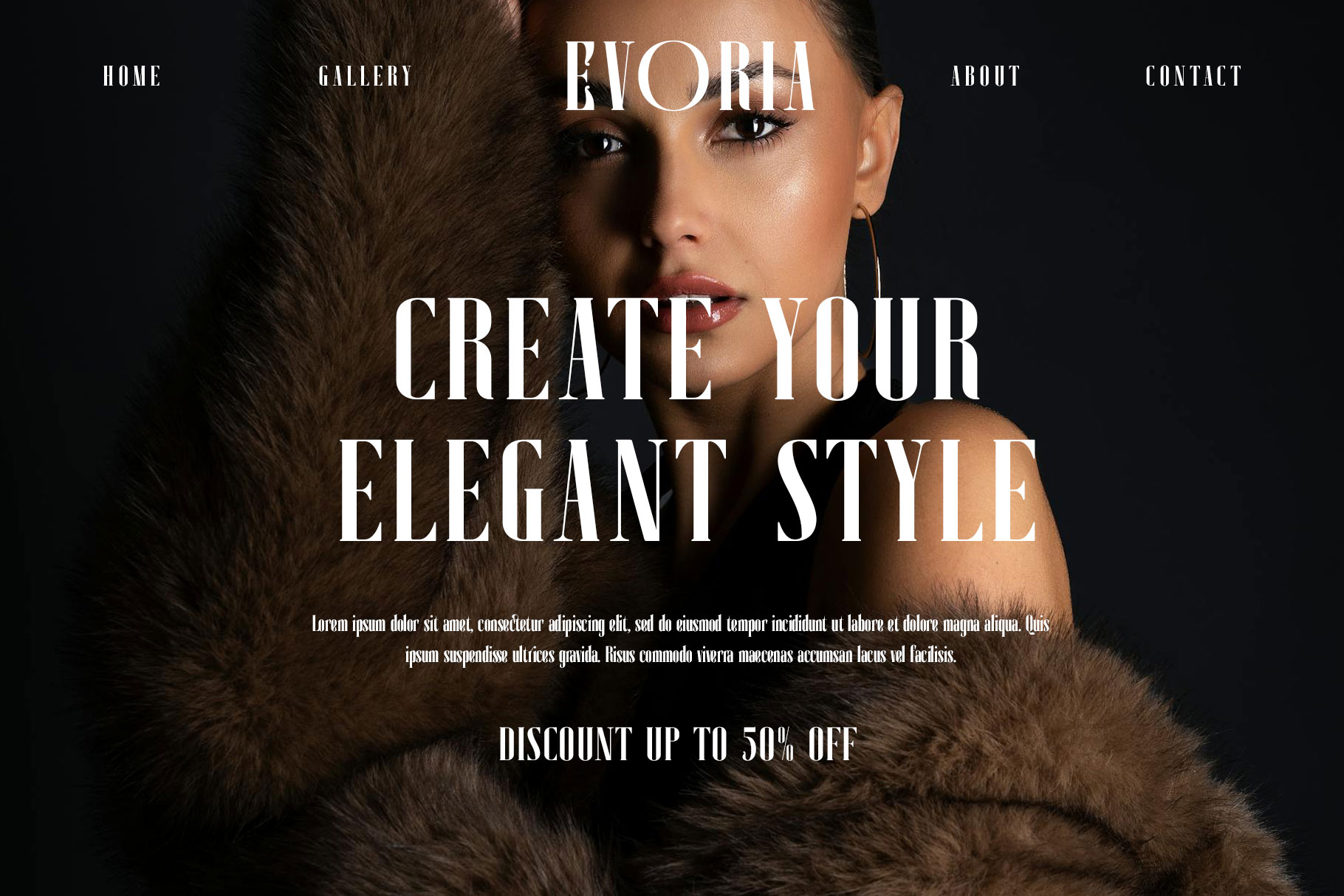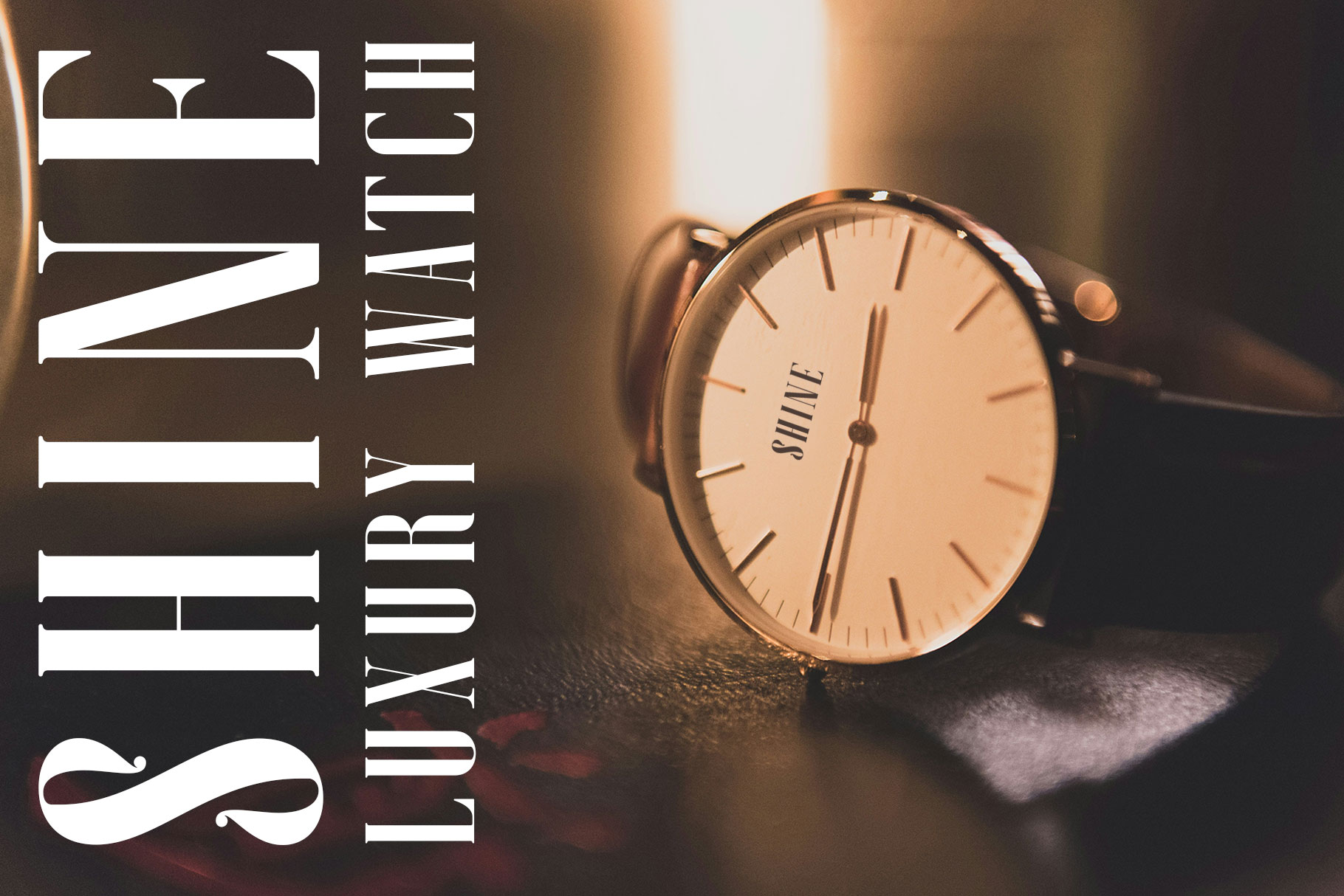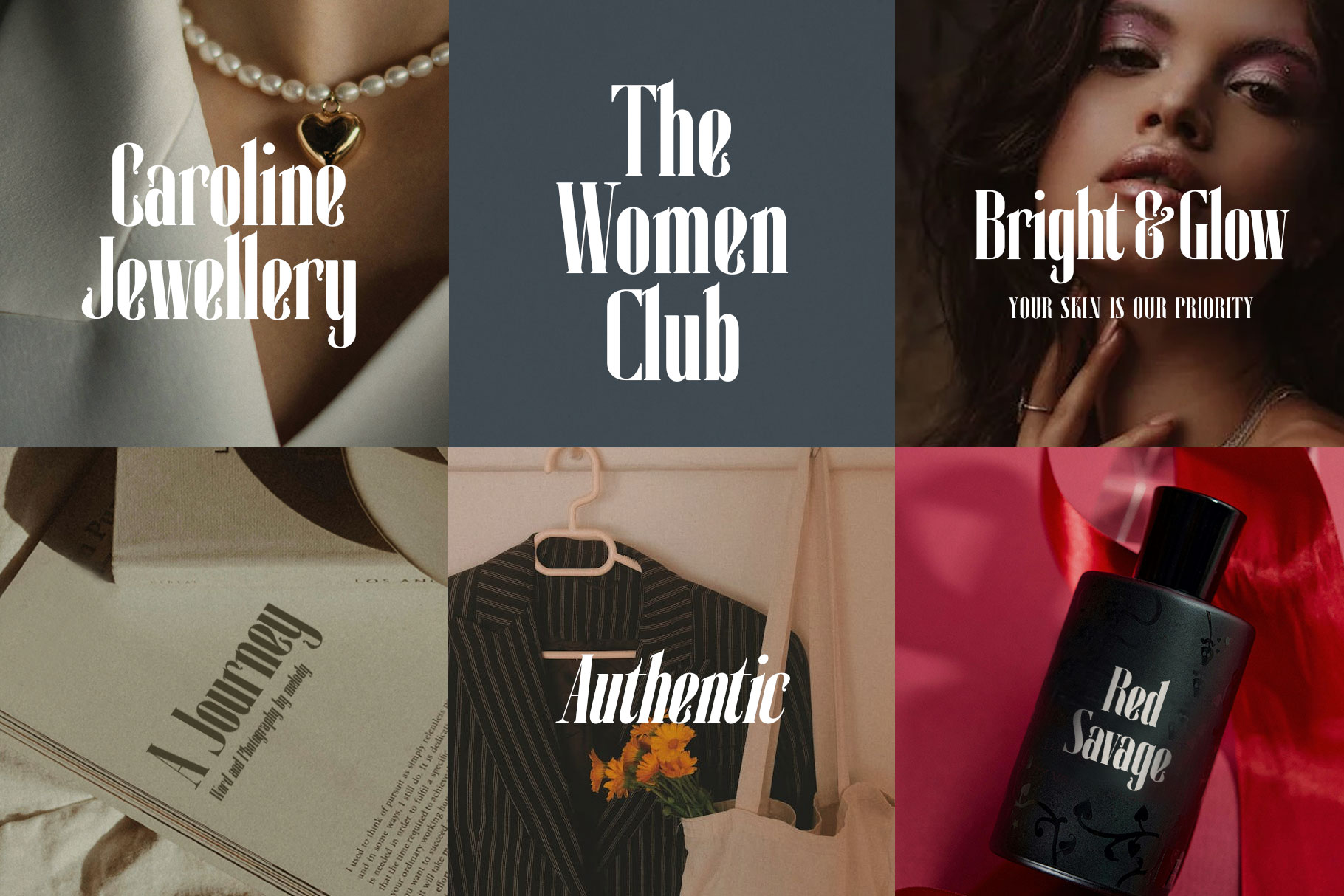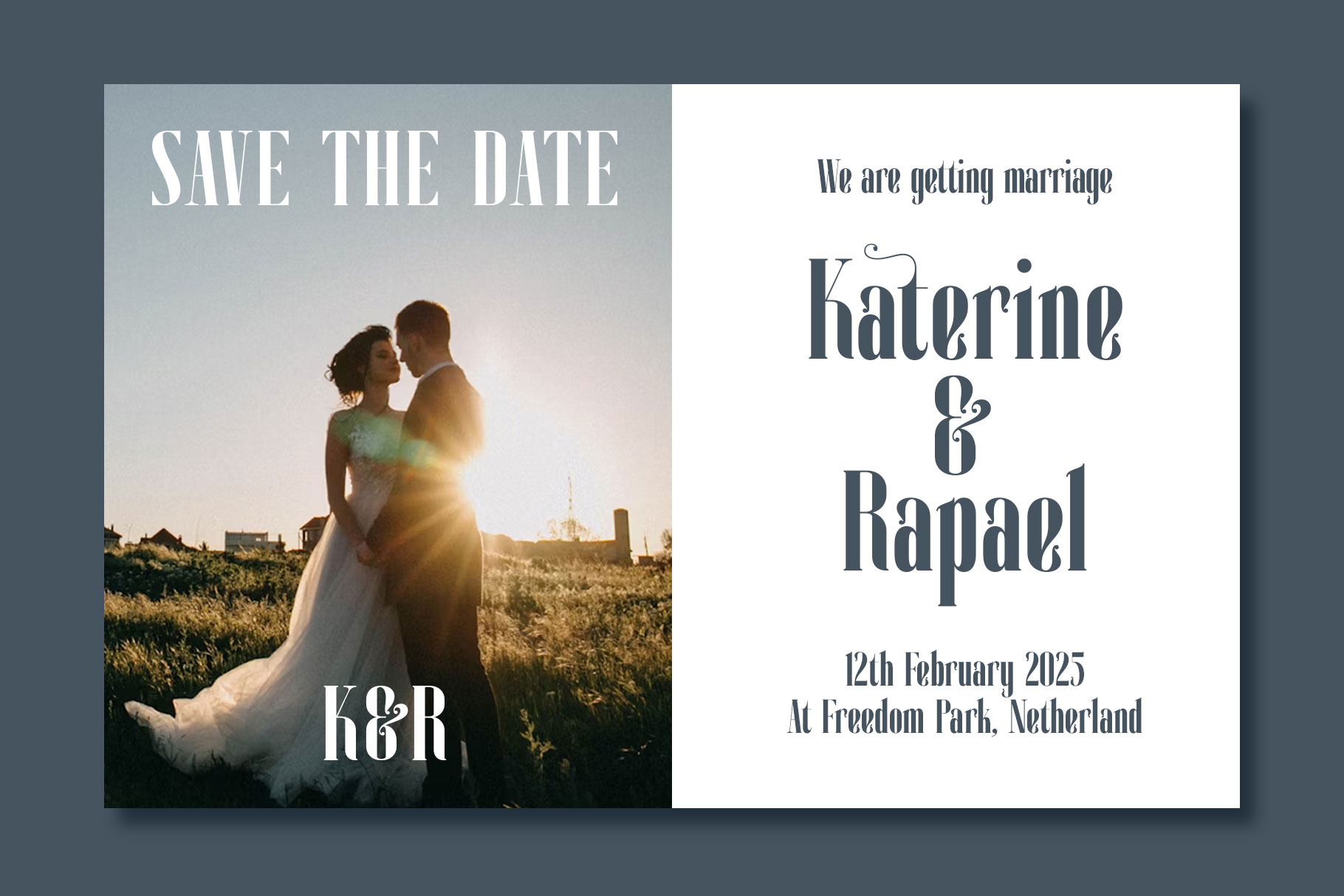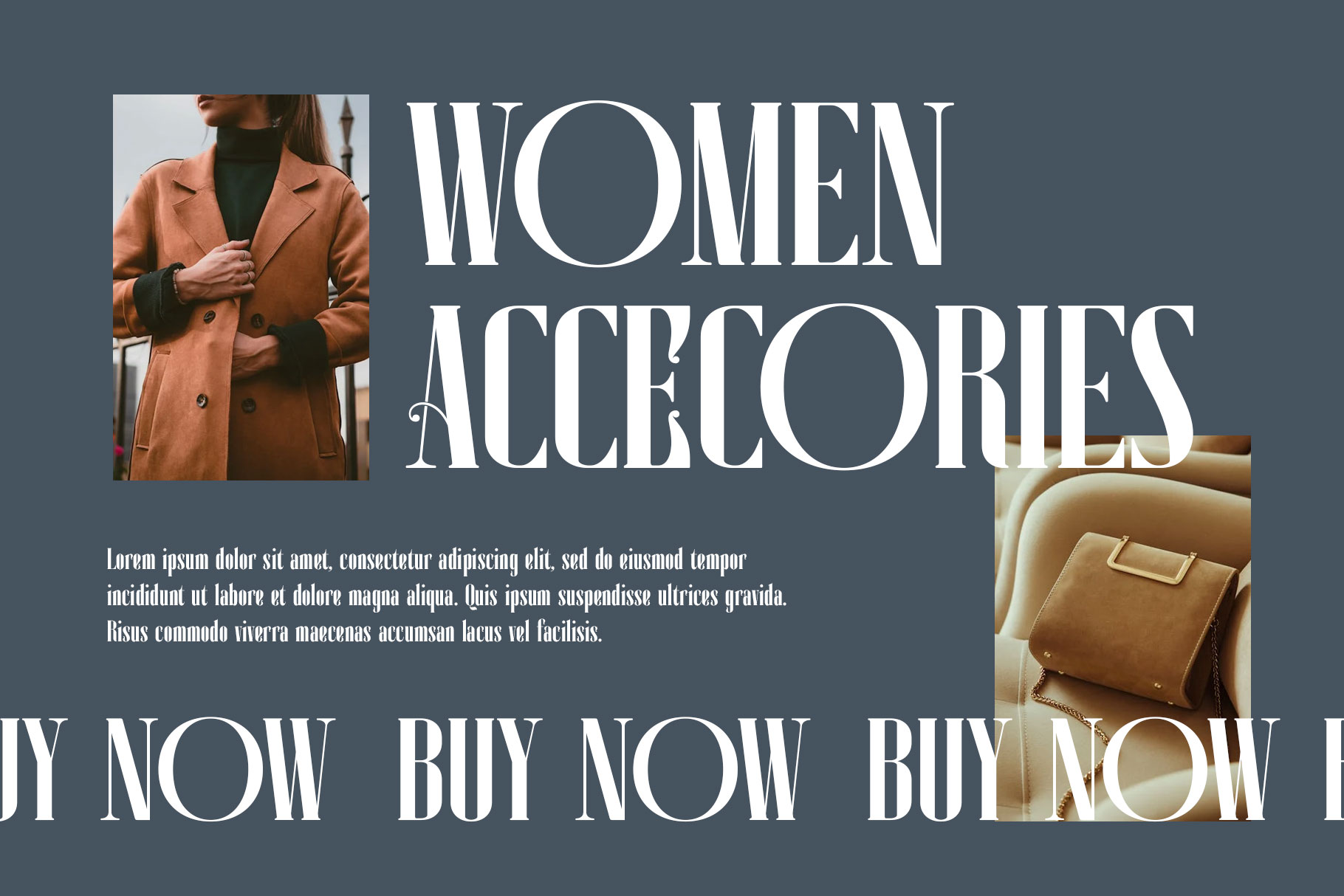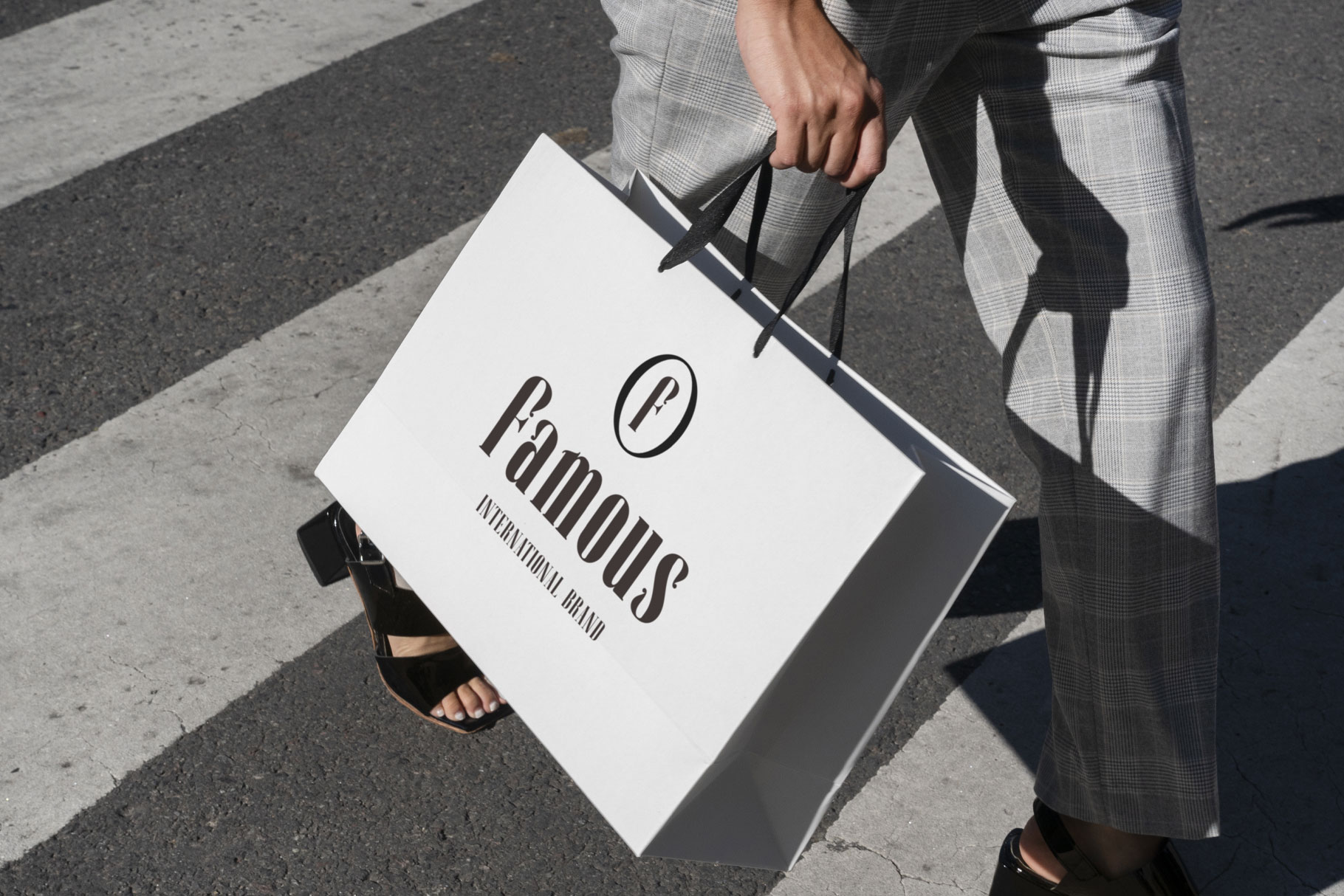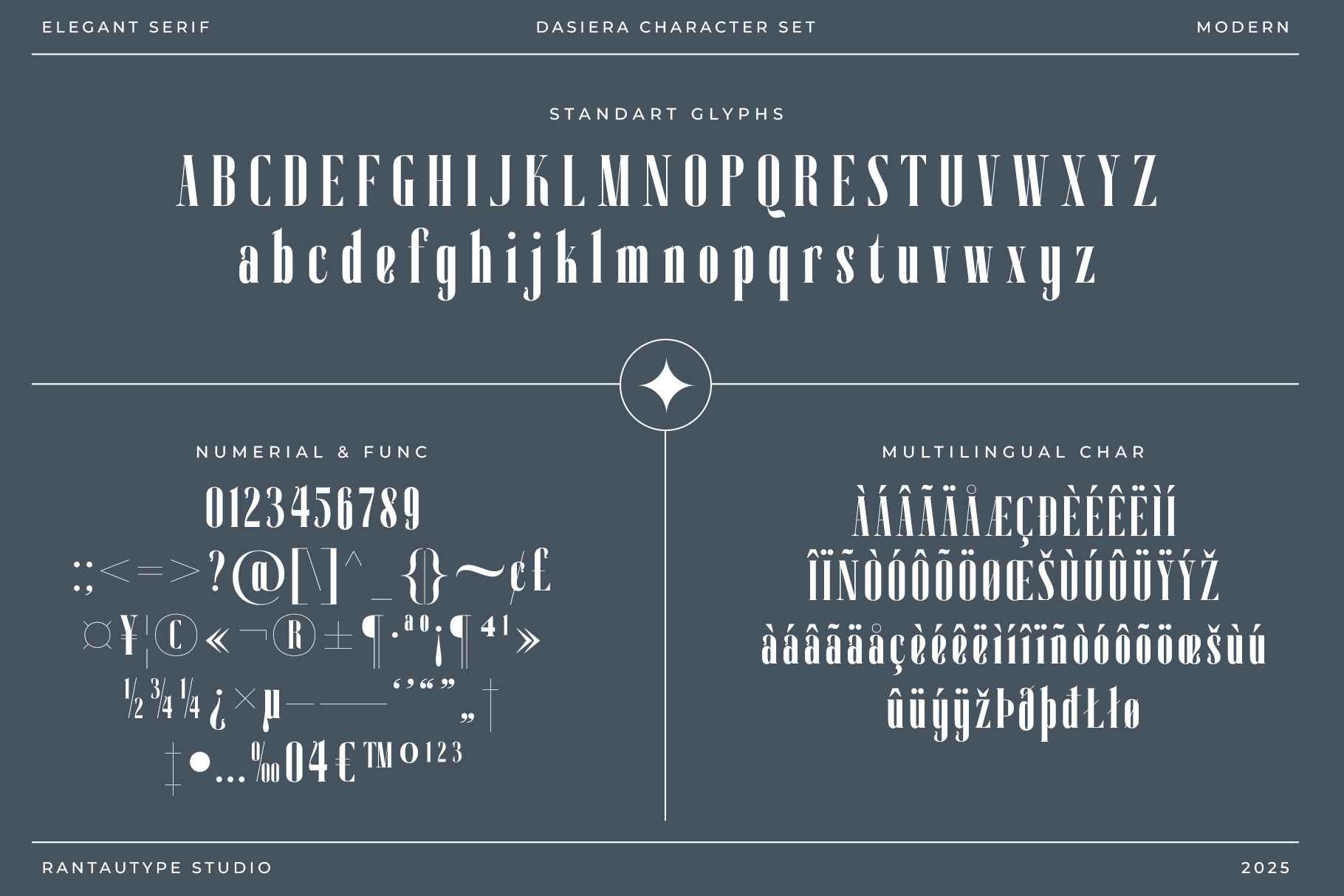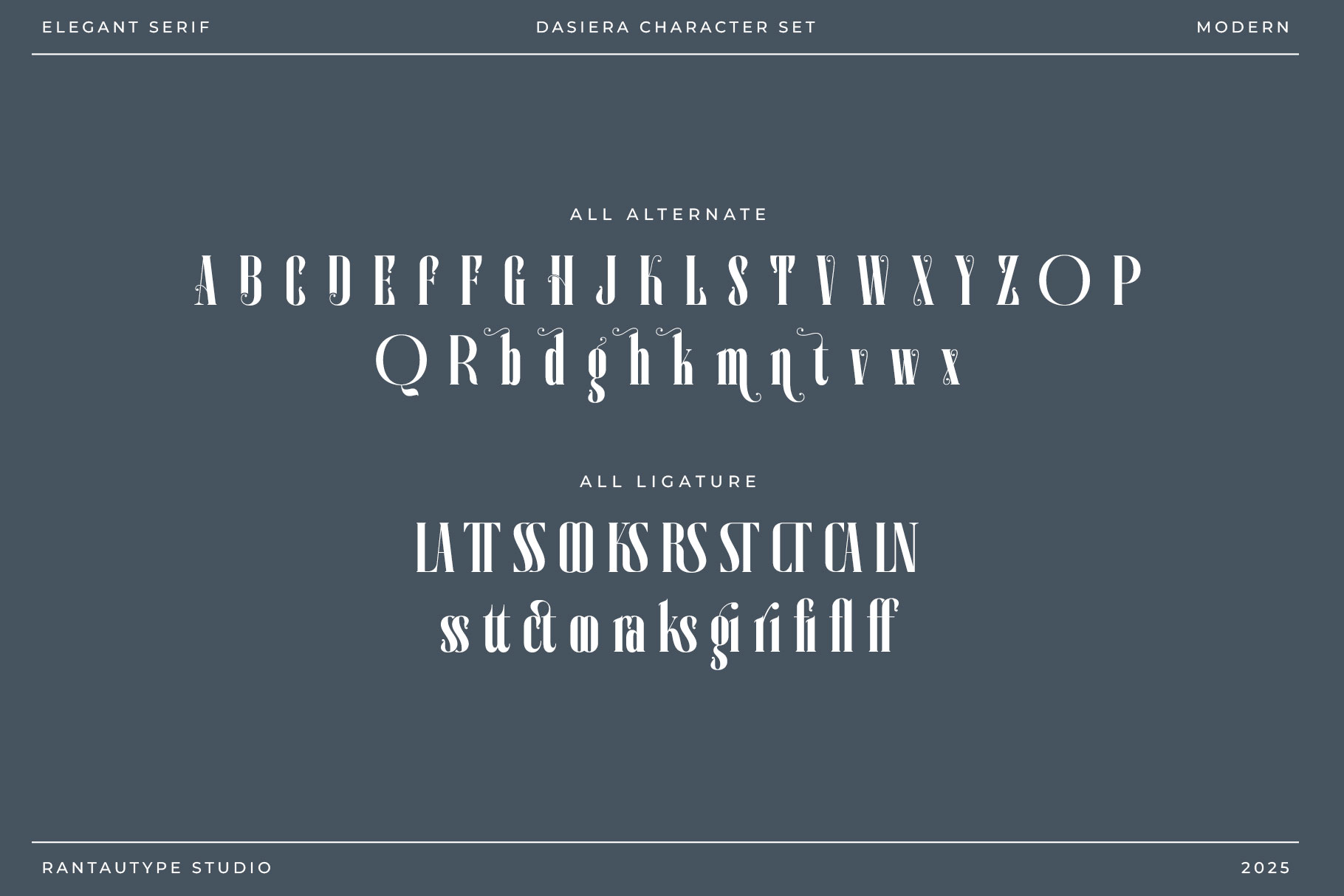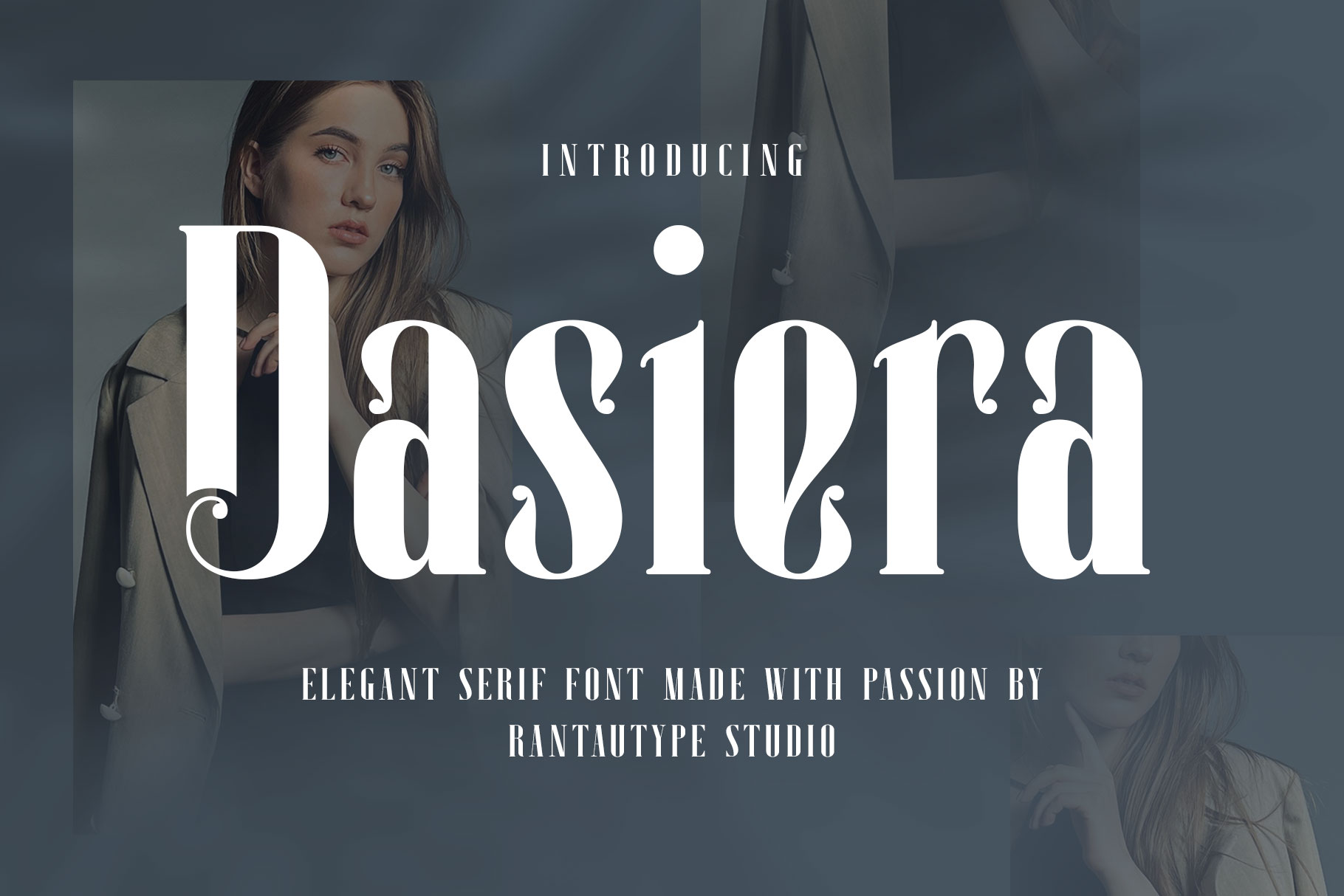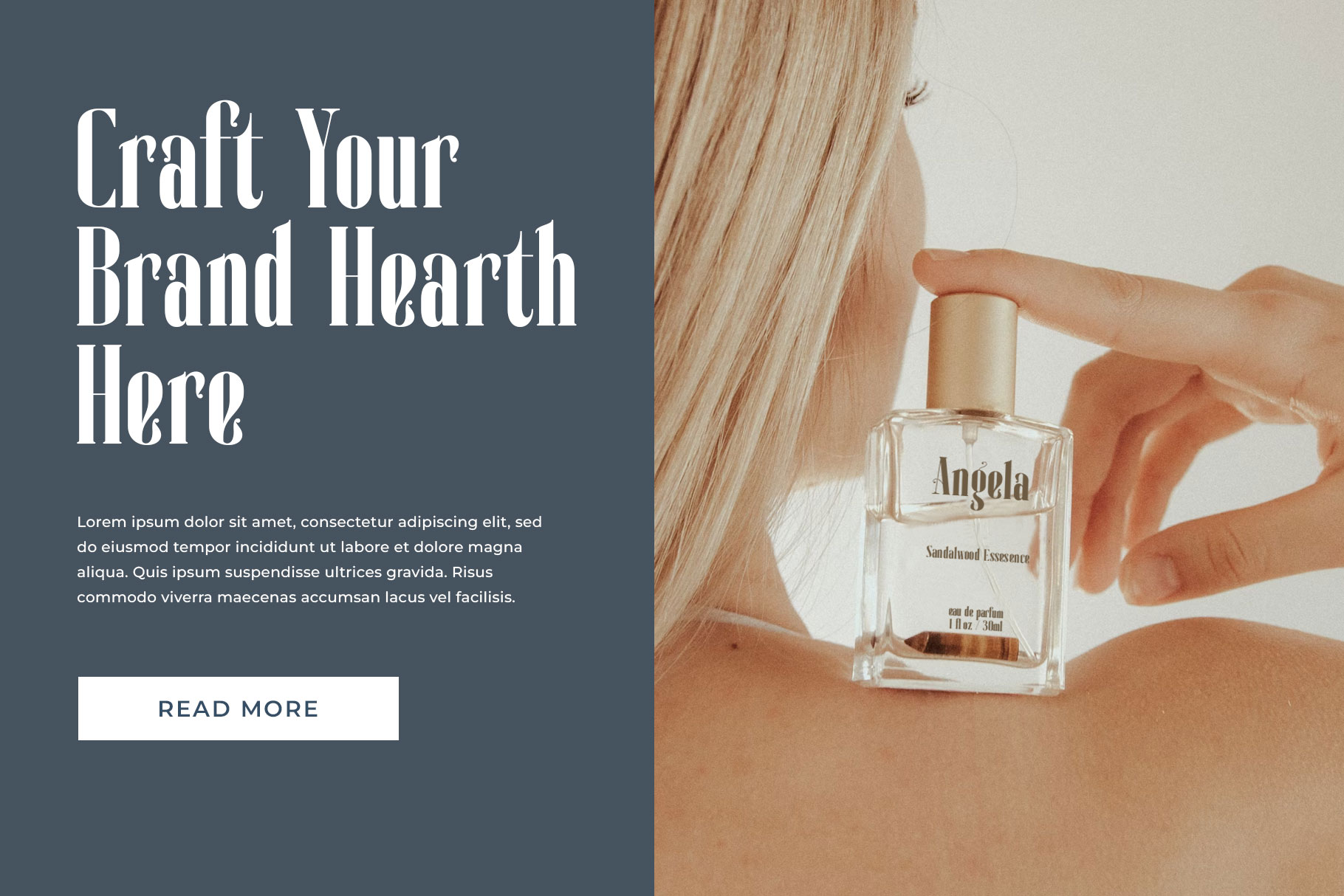
Dasiera Elegant Serif Font
Dasiera is elegant serif font with grace and elegant style. Dasiera bring typography with fashionabel look to create your design project awesome. Dasiera is a perfectly choice for any creative endeavor, chic, lifestyle design such as logotype, advertisements, watermark on photography, stationery, branding project, display and magazine, invitation, corporate brand, product design, label, business project and many other project with elegant touch.